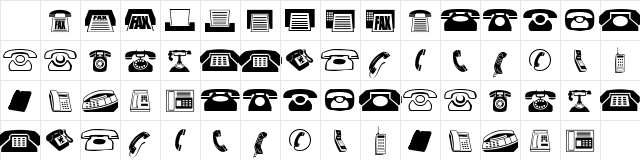
Complete Phones NormalA glyph index. Displaying only characters natively supported by Phones NormalA font.
Phones is a composed and adaptable typeface that performs quietly and consistently across a wide range of design contexts.